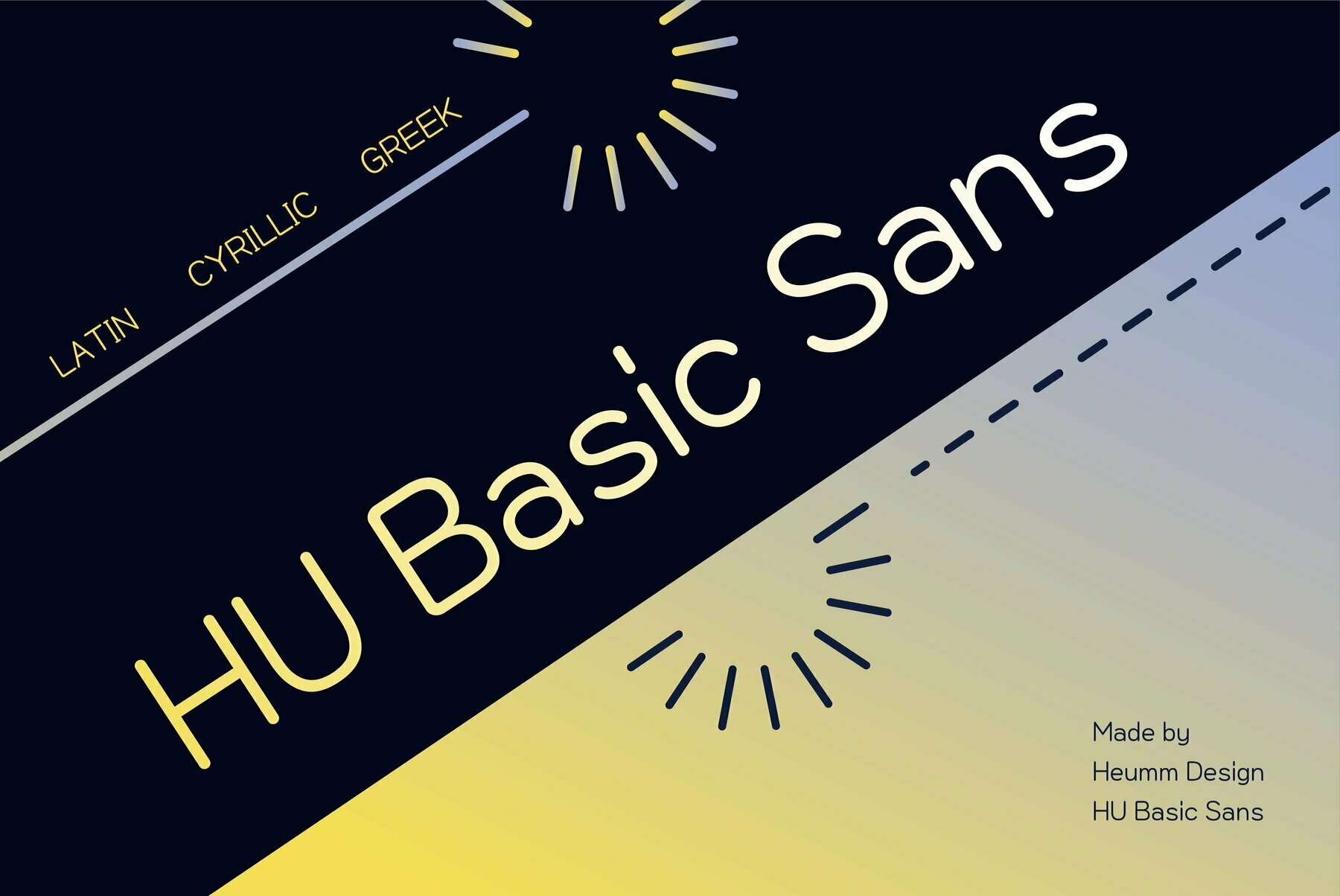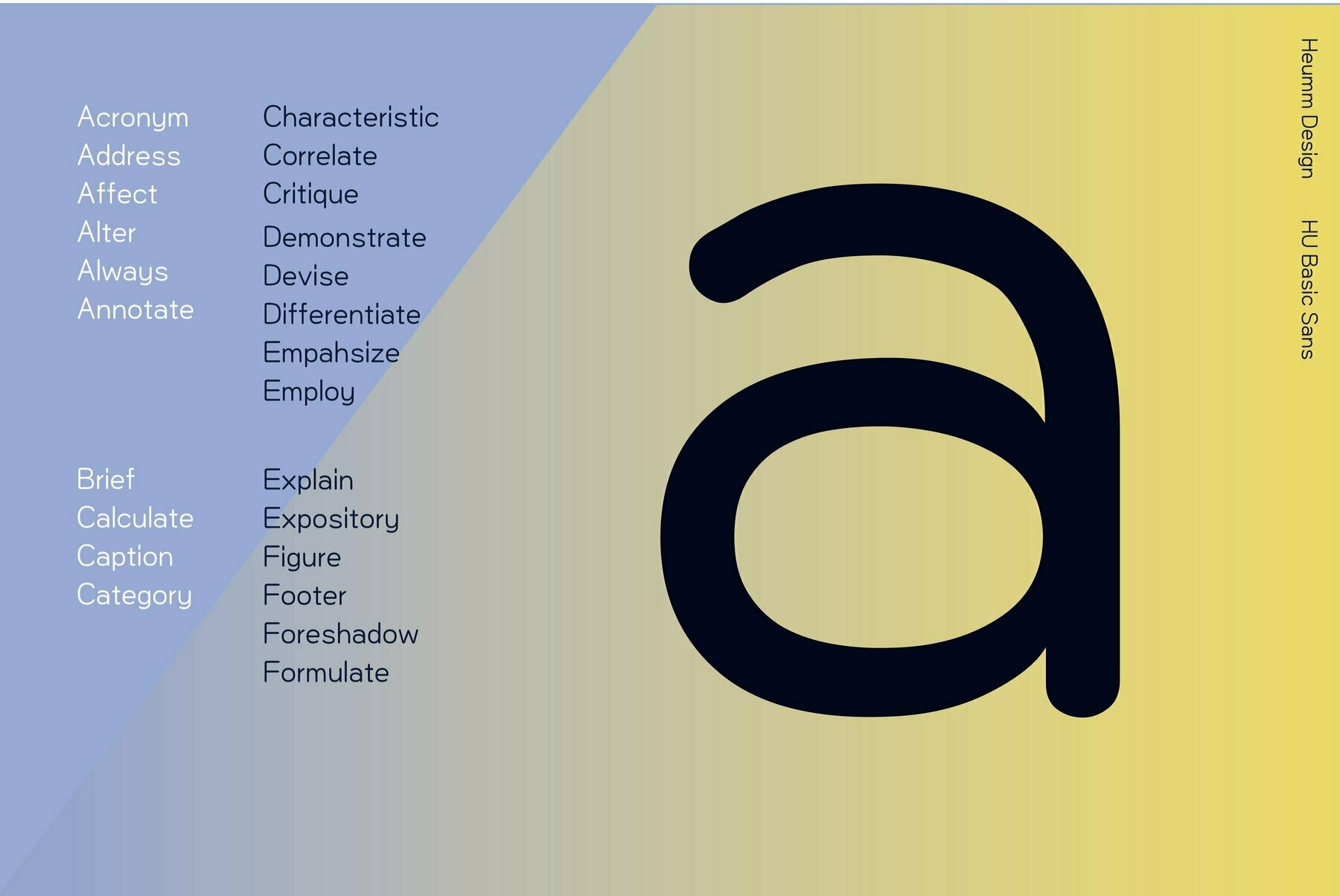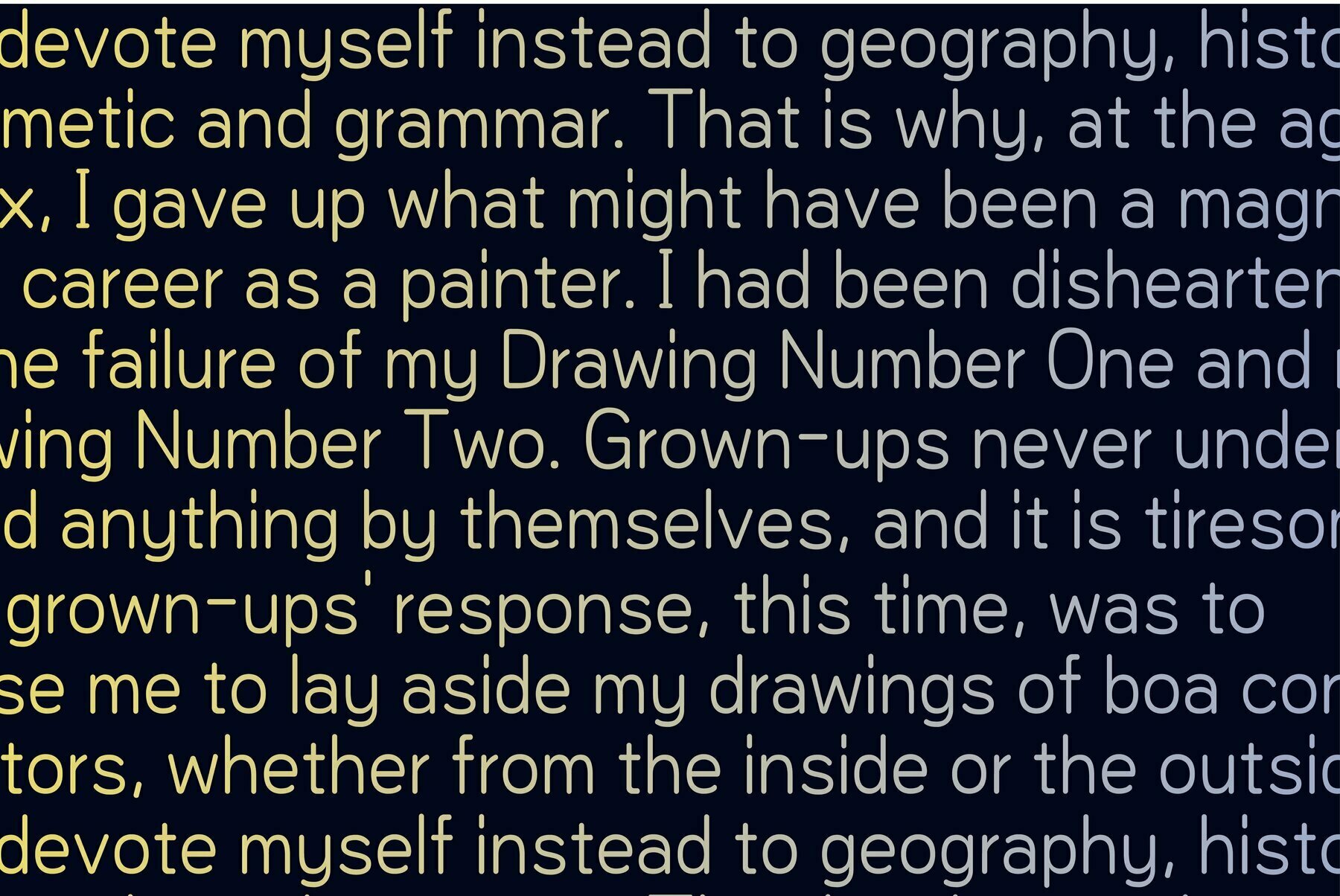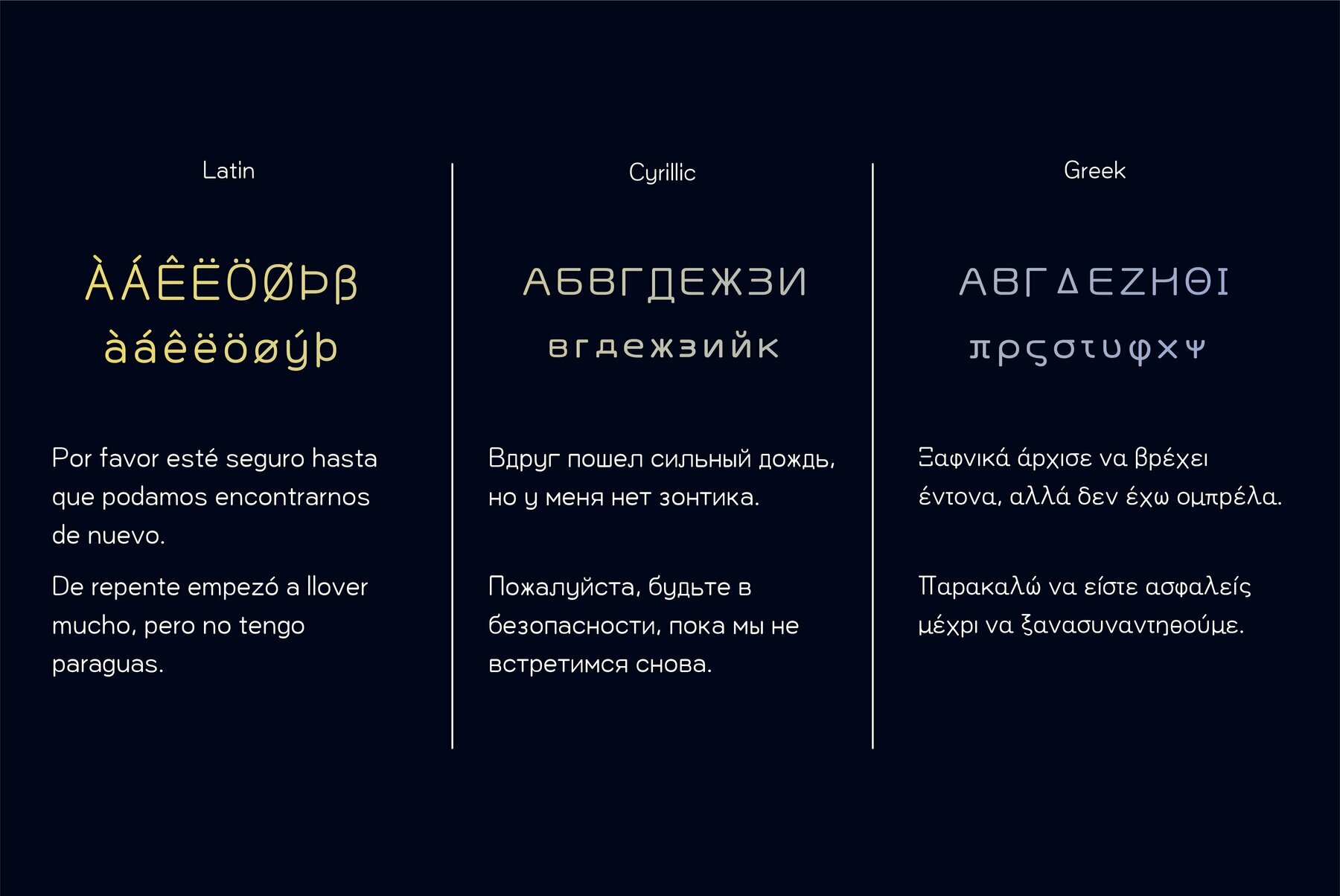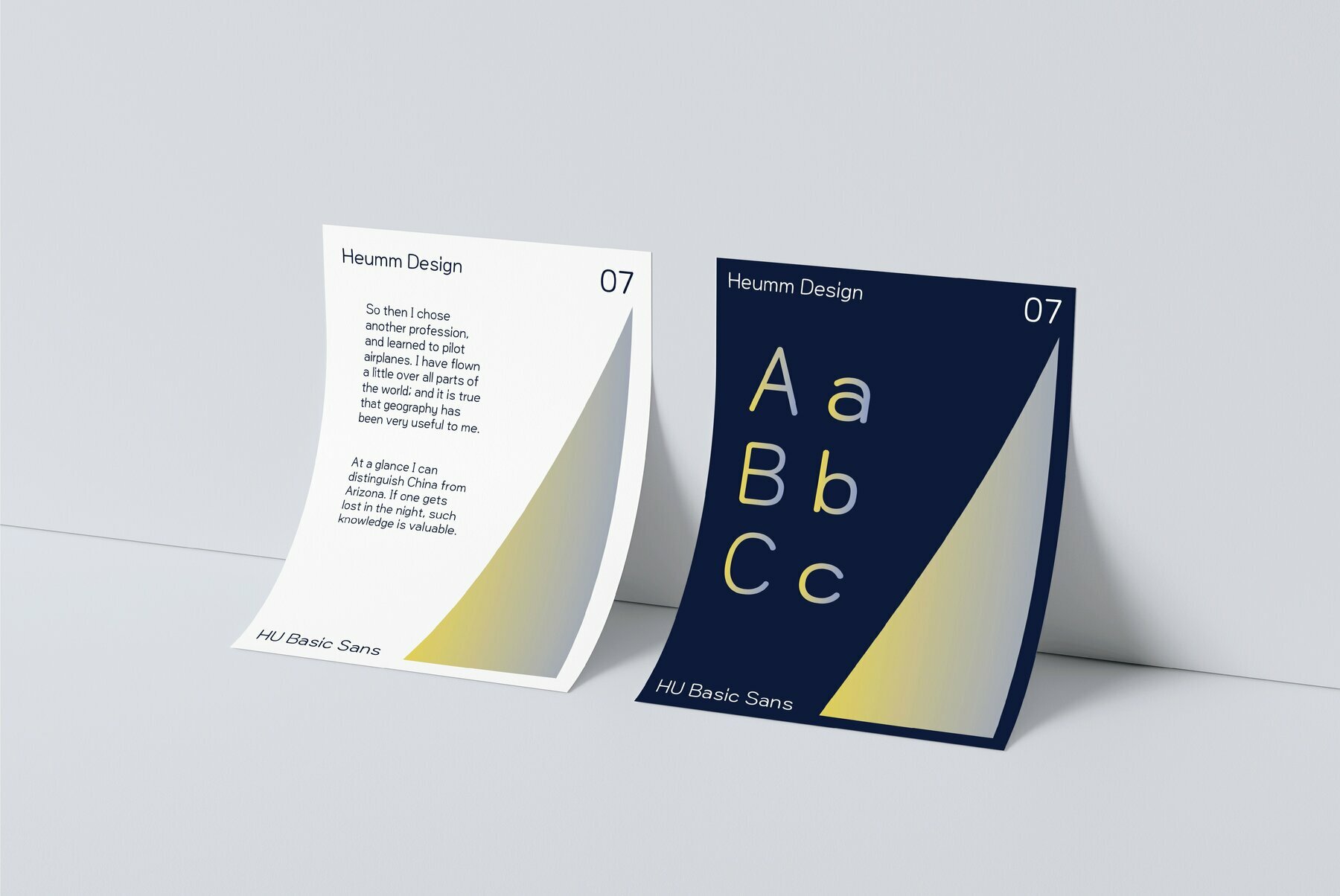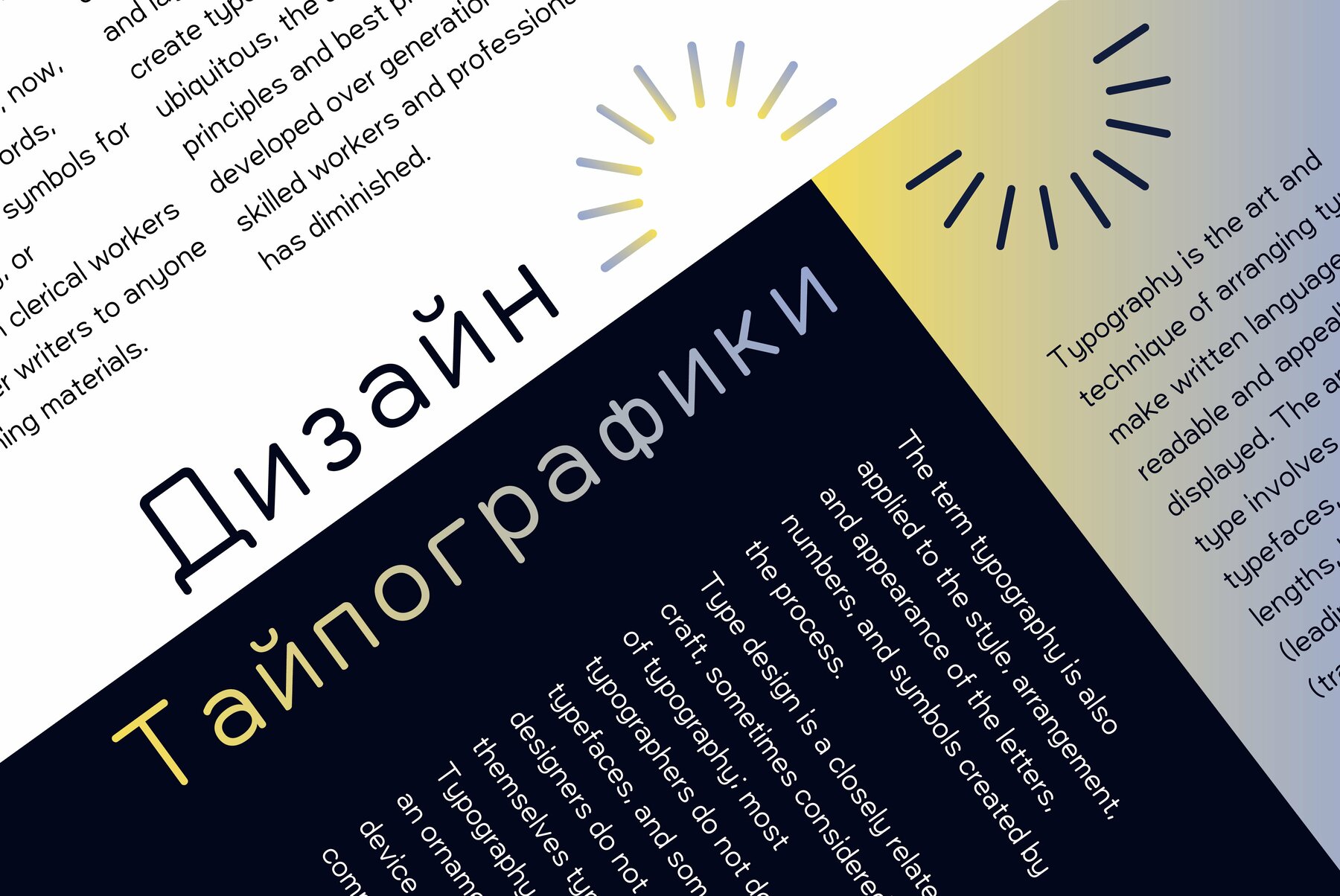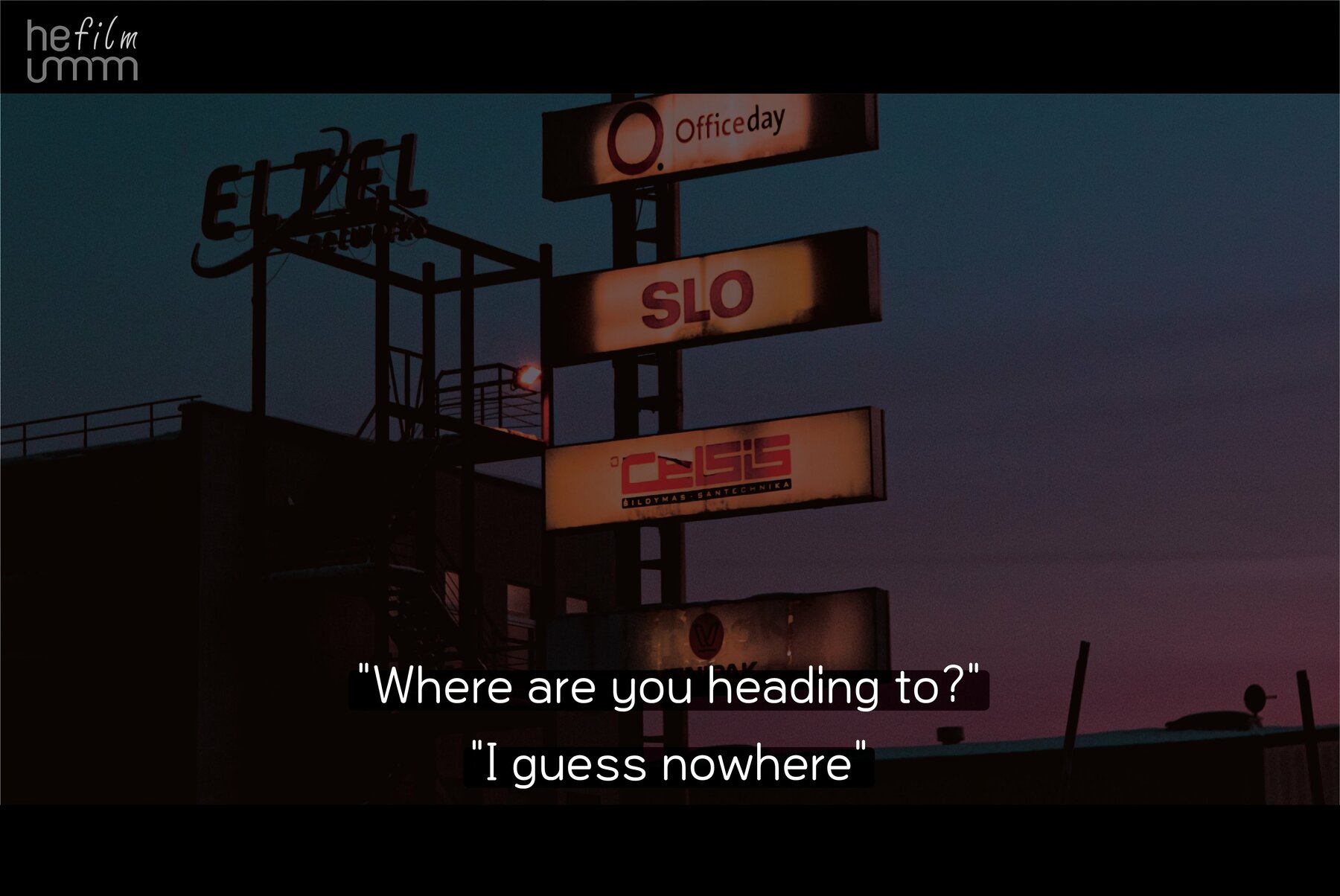
HU Basic Sans Font
HU Basic Sans is a body text font with simple Sans structure. It is well used in medias that are appropriate to use sensible font types. yet, its shows it's stylish aspects with it's wide main body.